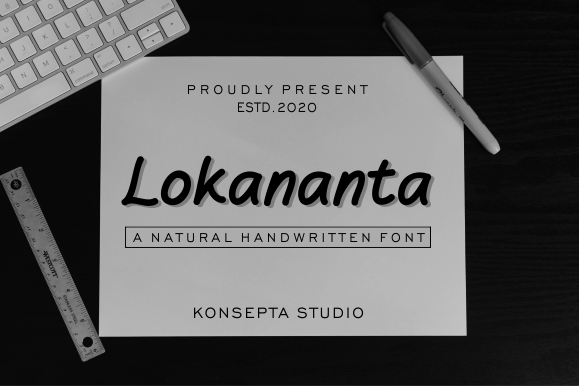
Hi, there! Proudly present our next font experimental project, Lokananta. Lokananta is natural handwritten font. It is perfectly suited for a wide variety of projects that required natural and some personal touch. You can use it for Instagram posts, motivational quotes, or printed design such as t-shirt design, tote bag, or card invitations. Use this for main font on your word proccesing apps, it works perfectly to give sense of natural touch and natural handwritten. You can use it for personal use only. But, if you wanna use this for commercial purpose, feel free to contact me at konseptastudio@gmail.com. Feeling generous today? Making fonts is very time-consuming. So, if you find a value from my work, consider to give a donation. Believe me, your donation will boost my creativity to create beautiful fonts, more and more in the future. Paypal account for donation : https://paypal.me/konseptastudio/ Purchase at our store : https://www.creativefabrica.com/product/lokananta/ref/235542/ Thanks for the download and donation. Let's have font together! :D |